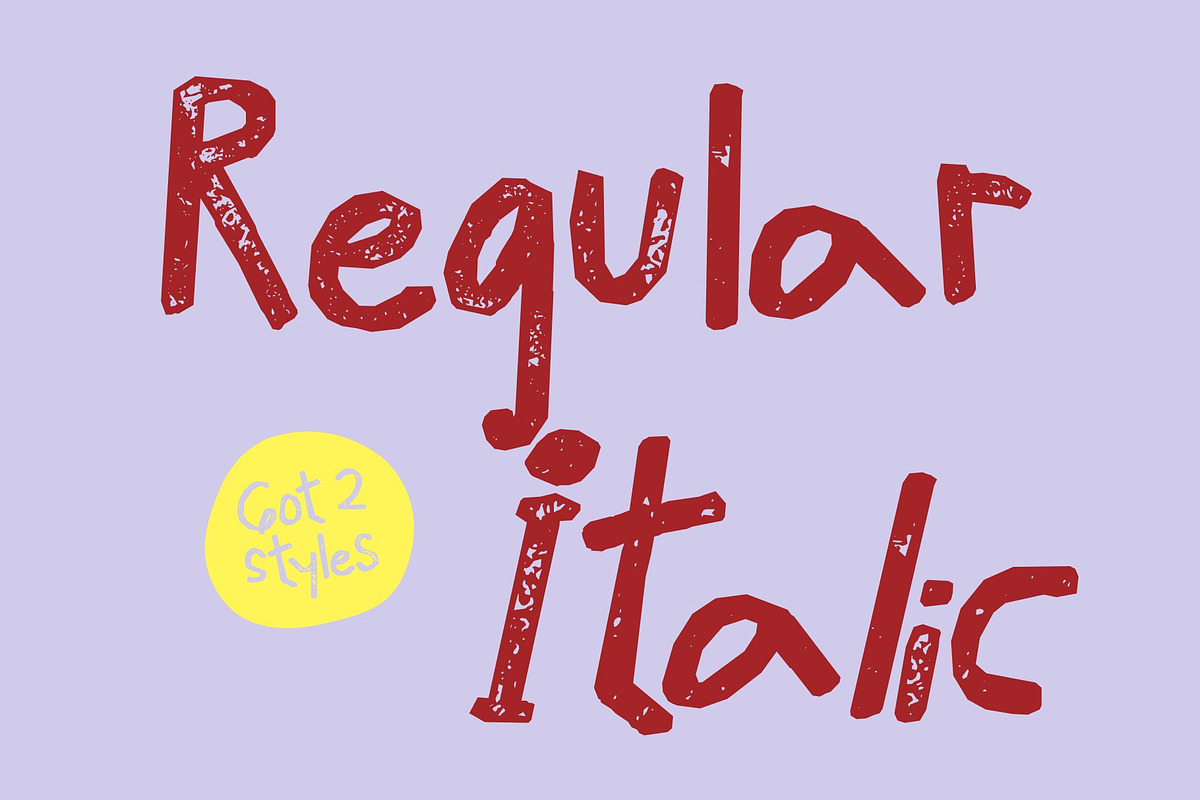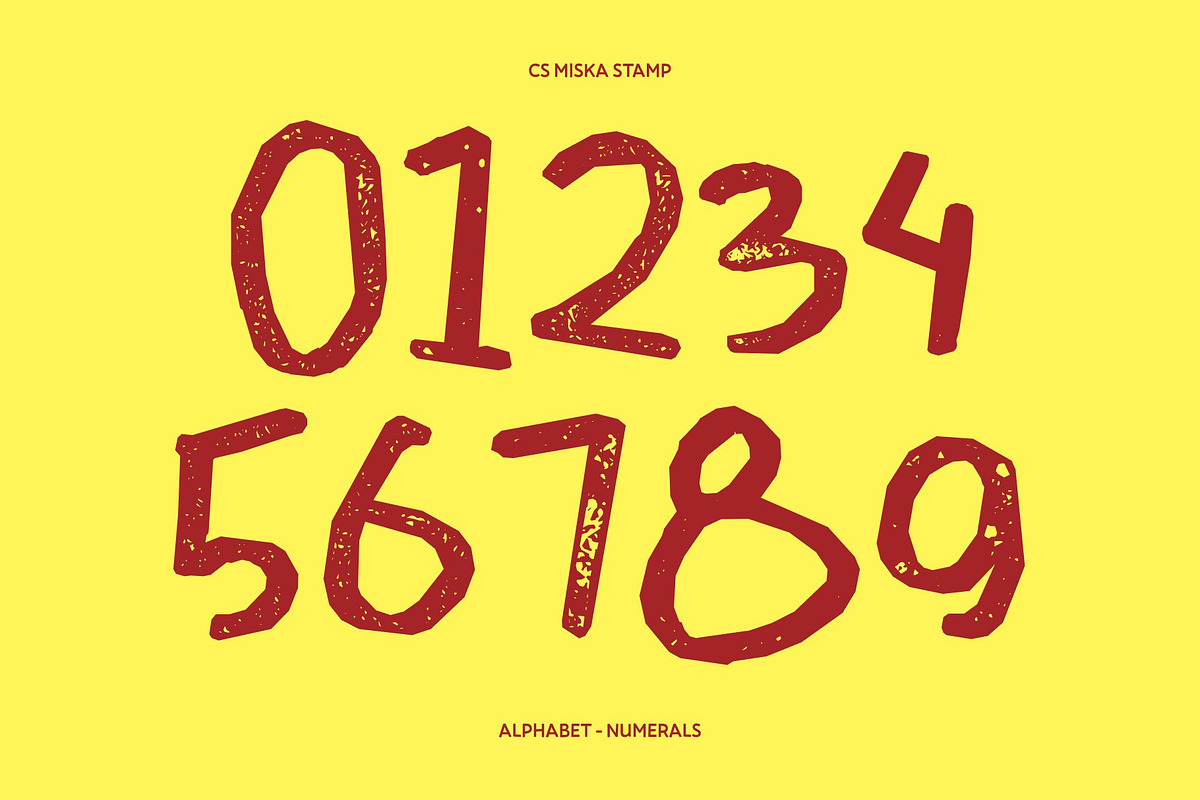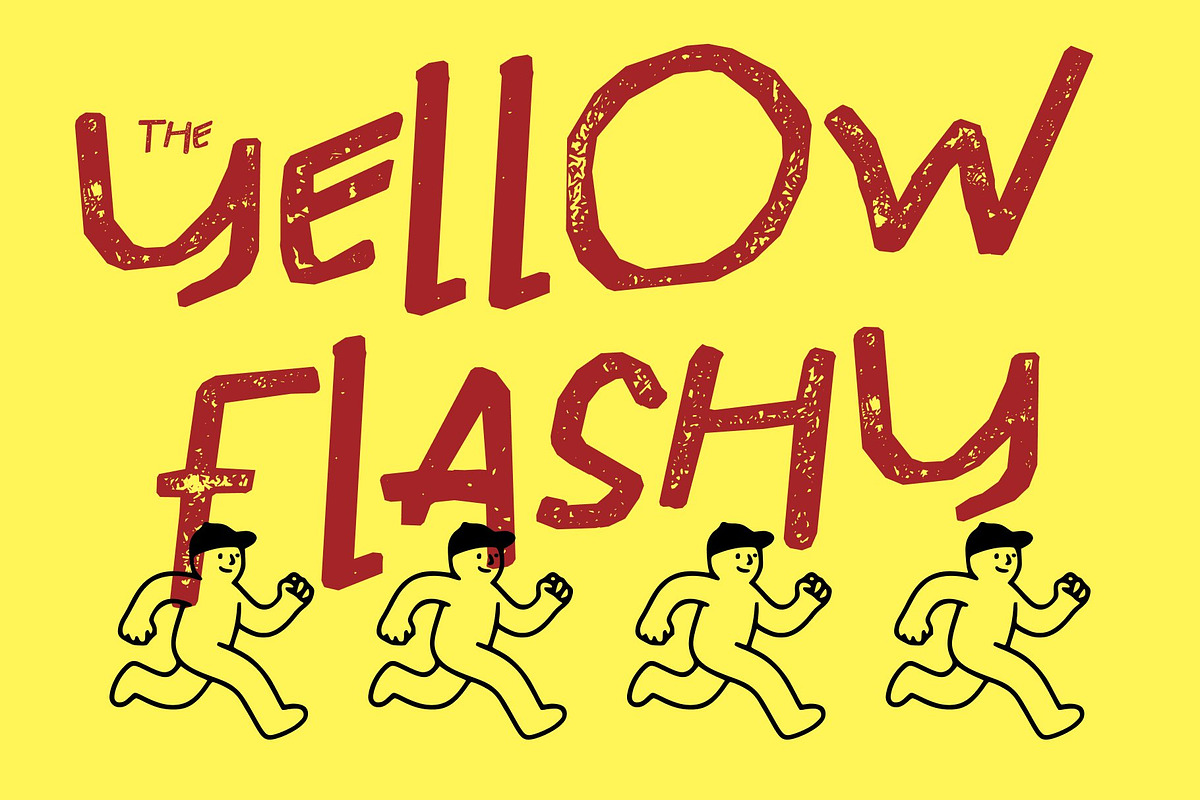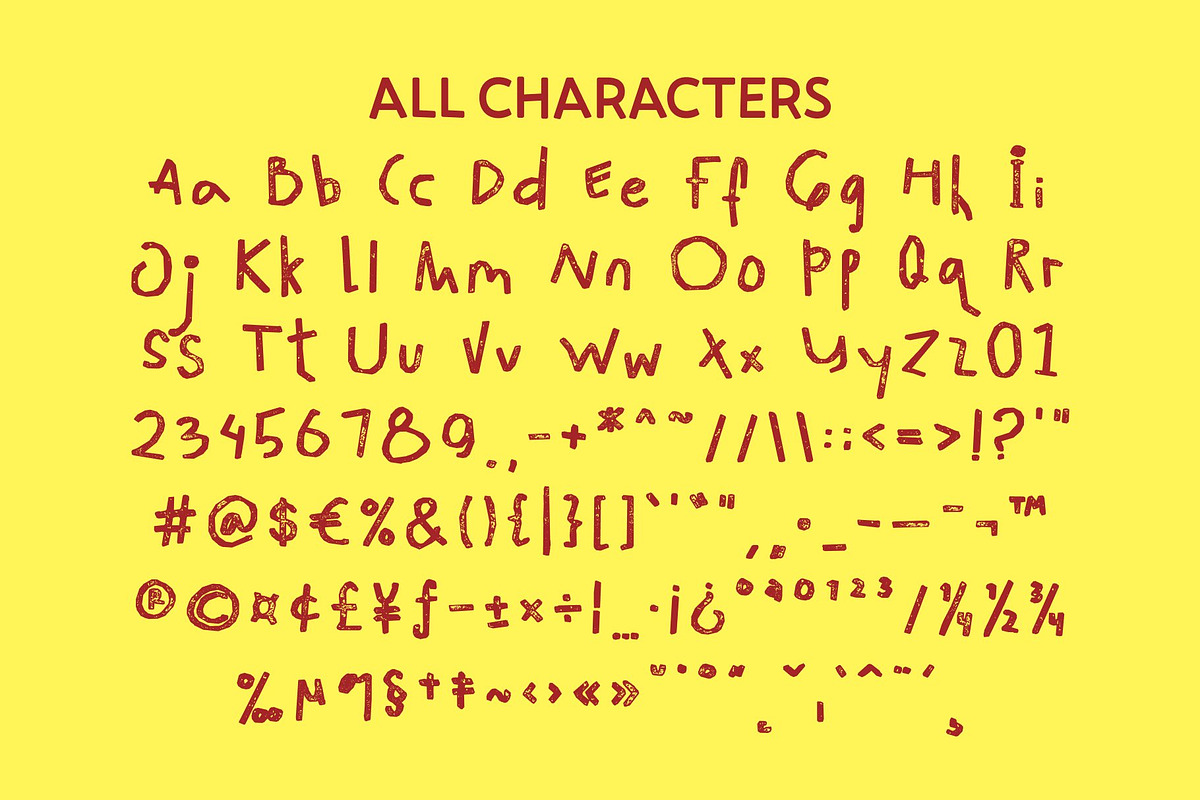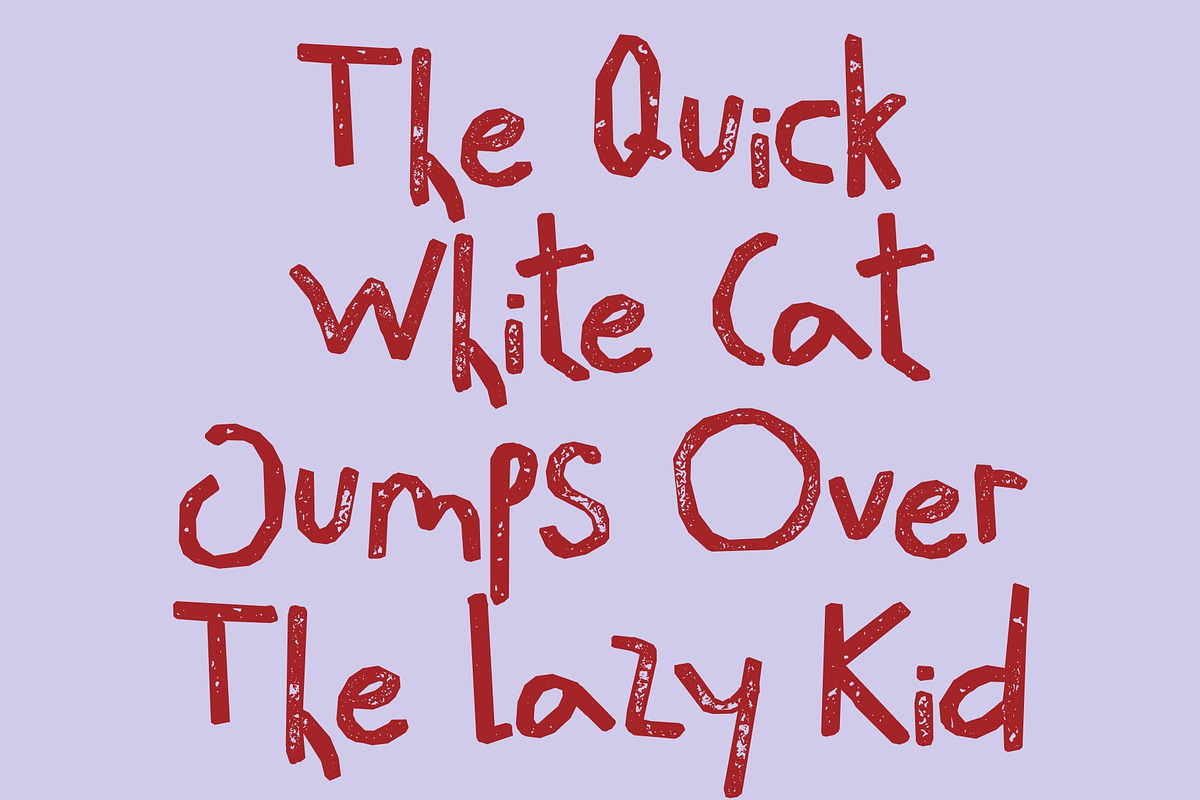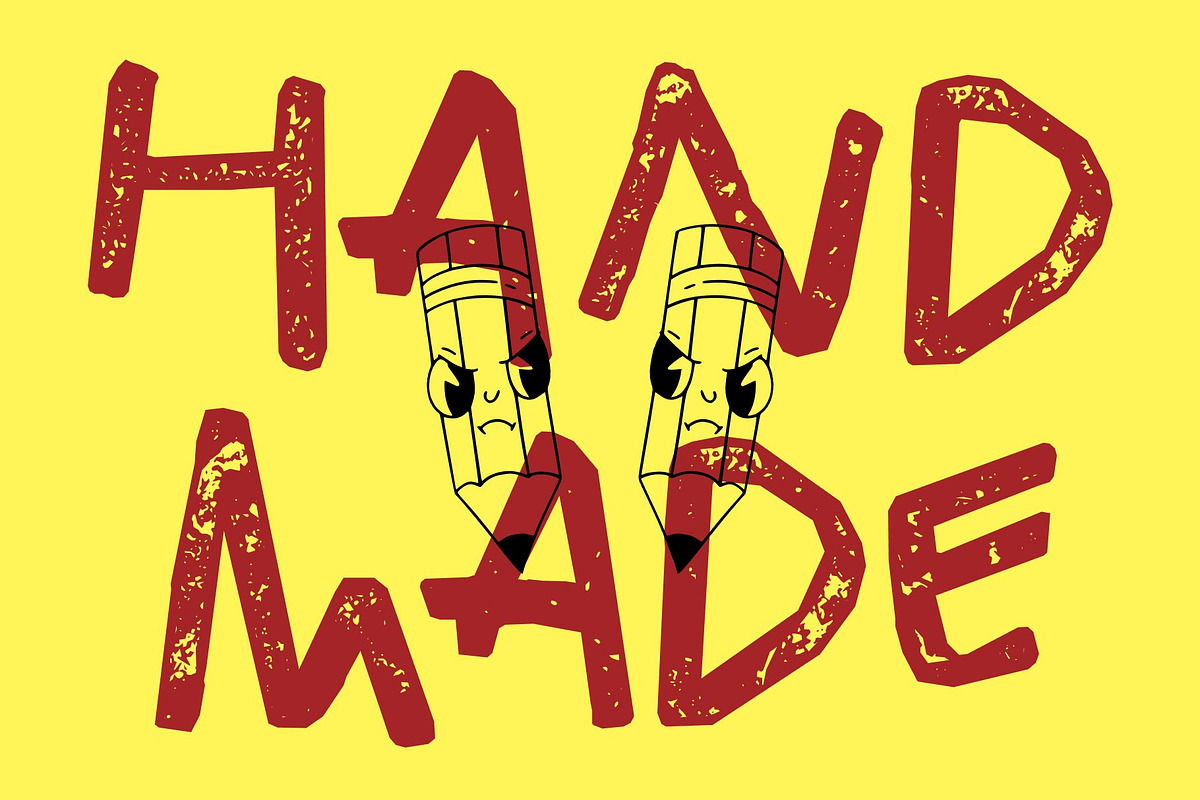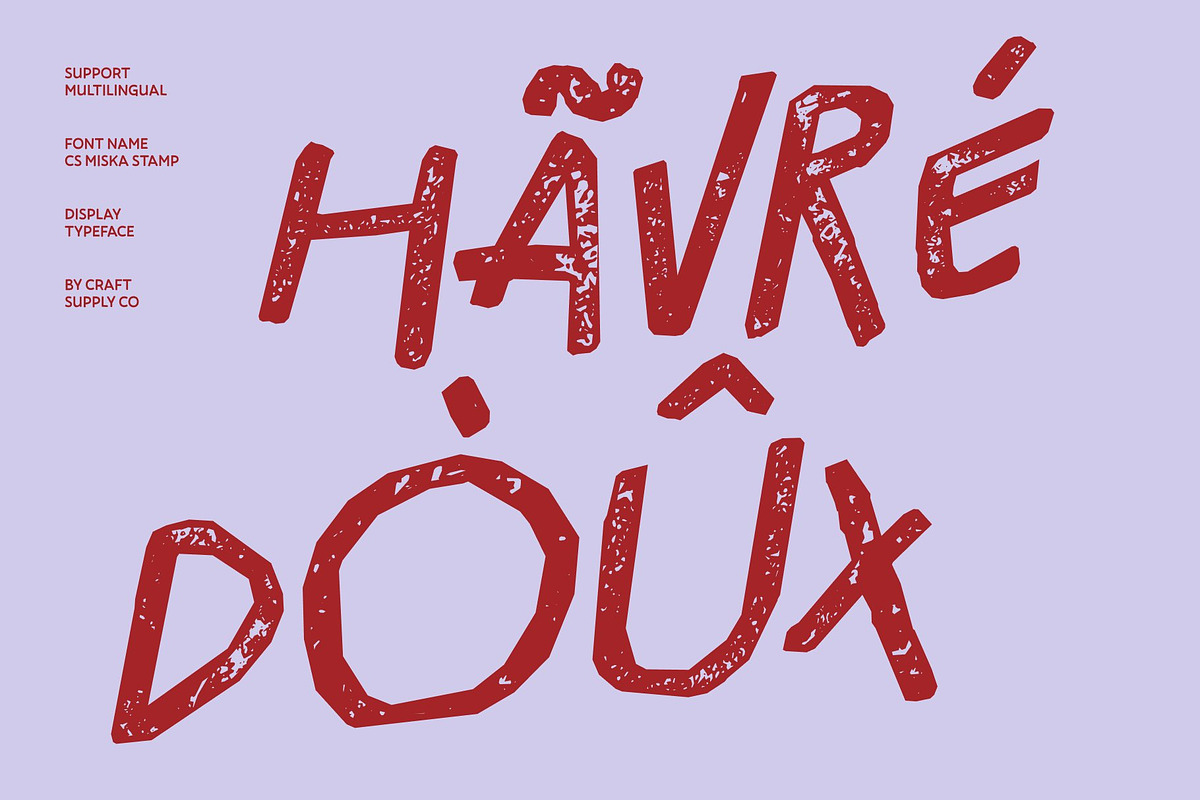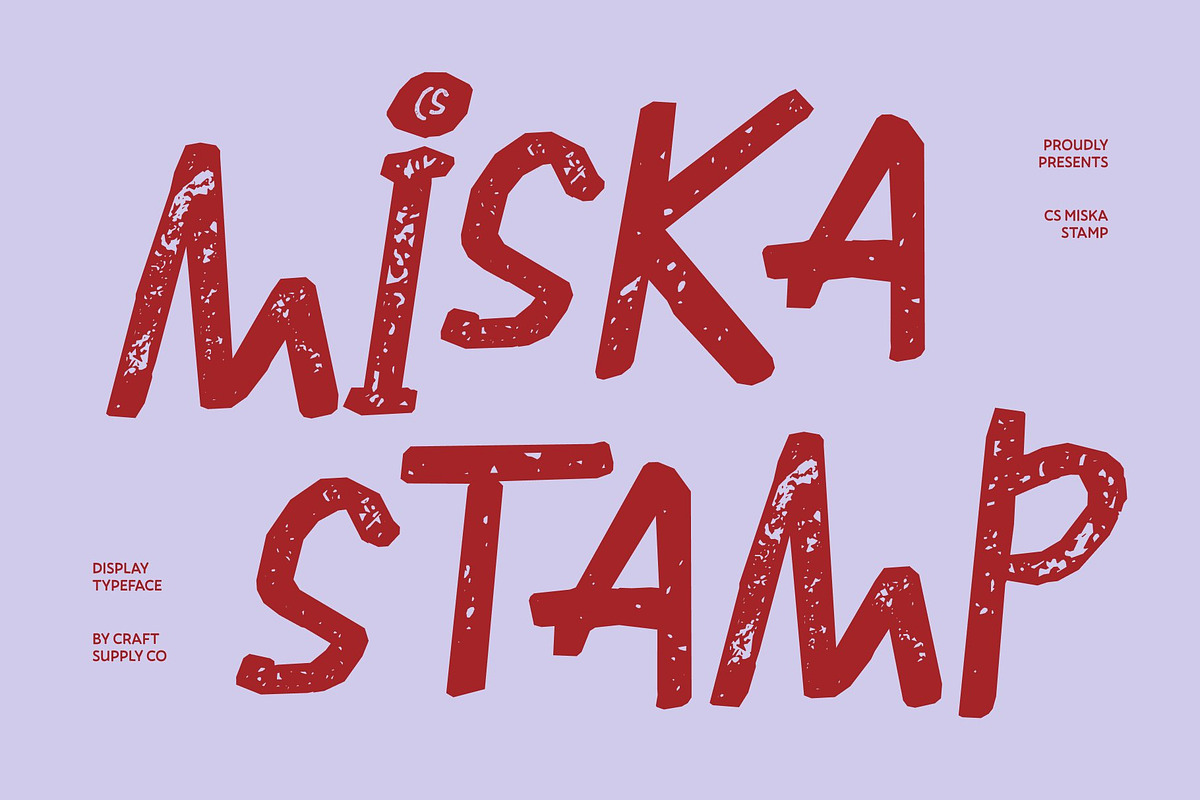
CS Miska Stamp
CS Miska Stamp – Where Mess Meets Playfulness
Messy Handwritten Display with Vintage Texture This is a gritty and playful display font crafted with irregular, scribbled strokes that capture spontaneity and carefree expression. Enhanced with a stamp effect, the letters gain a distressed, inked texture that adds a nostalgic and handcrafted feel, giving the font a lively vintage personality.
Irregular Shapes for Creative Expression The uneven, freely drawn letterforms create a raw and authentic aesthetic that feels energetic and full of character. This imperfect charm makes the font ideal for projects that embrace a relaxed, quirky, and unconventional visual tone.
Playful Energy for Fun Projects With its expressive and unrestrained style, this font injects movement and personality into any design. It shines in party invitations, kids’ artwork, playful posters, and experimental branding where a sense of fun and spontaneity is essential.
Versatile for Expressive and Artistic Design From whimsical packaging and casual branding to social media graphics and creative editorials, this font delivers a charming handmade look. The stamped texture enhances its artistic appeal, ensuring every design feels lively, unique, and full of character.
CS Miska Stamp Regular
CS Miska Stamp Italic